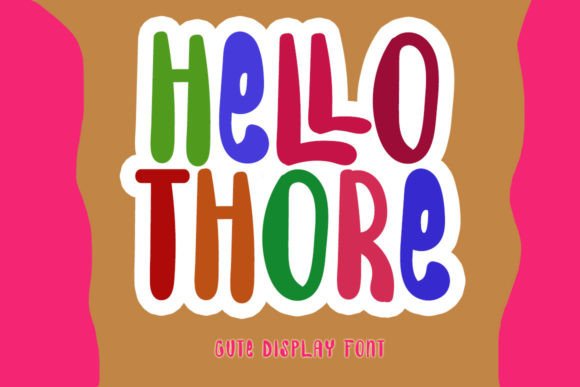
Hello Thore, a display font known for its elegance and beauty, will add a joyful touch to any design. Its clean and fresh aesthetic is suitable for formal and informal projects, bringing a captivating spark to your work.
Indulge in the endless creativity this font offers, and witness how effortlessly it enhances your designs. With Hello Thore, your projects will blossom into visually stunning masterpieces, leaving an unforgettable impression on all who encounter them.